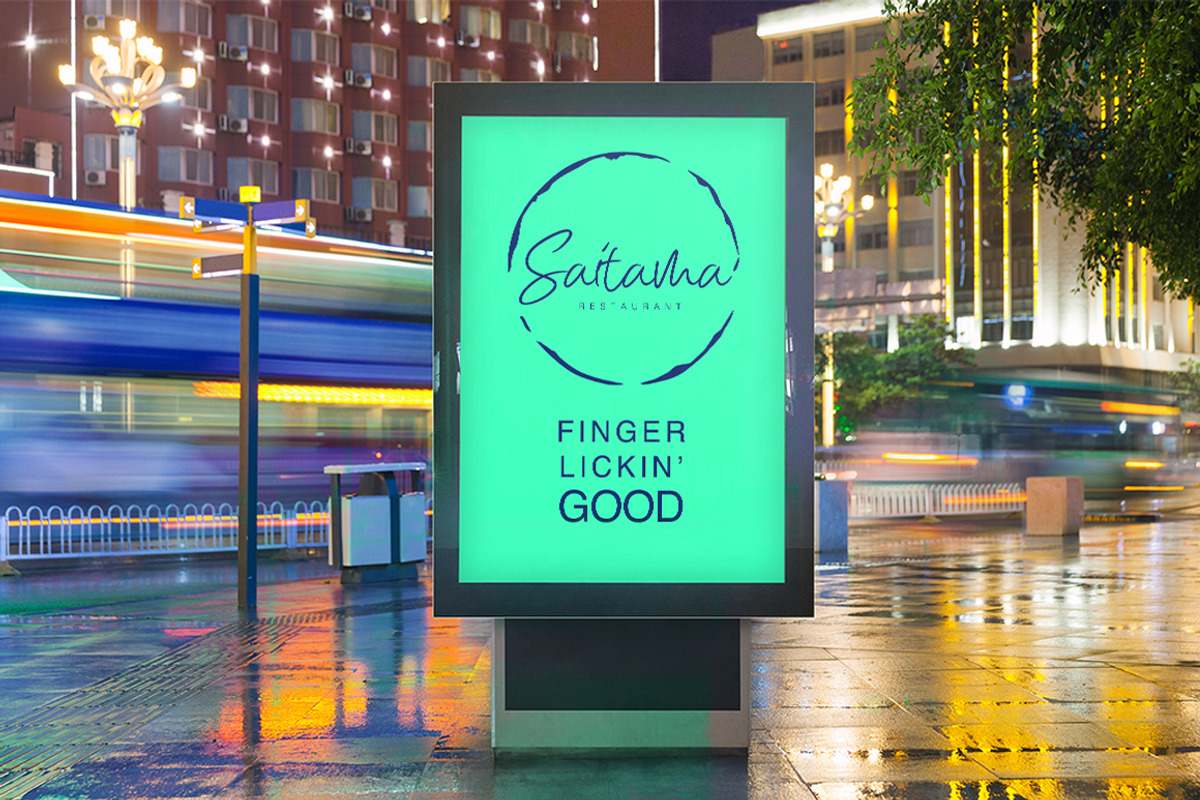
Ipanema
Ipanema, inspired by how fun everybody's feeling when they meet with the beach. All the problems gone. Ipanema refer to happy feeling, cheer, delightful, bliss, the feeling when you eating delicious food, all of the good feeling in the world.
Ipanema perfect for Branding, logos, packaging, posters, business cards, apparel, t-shirts